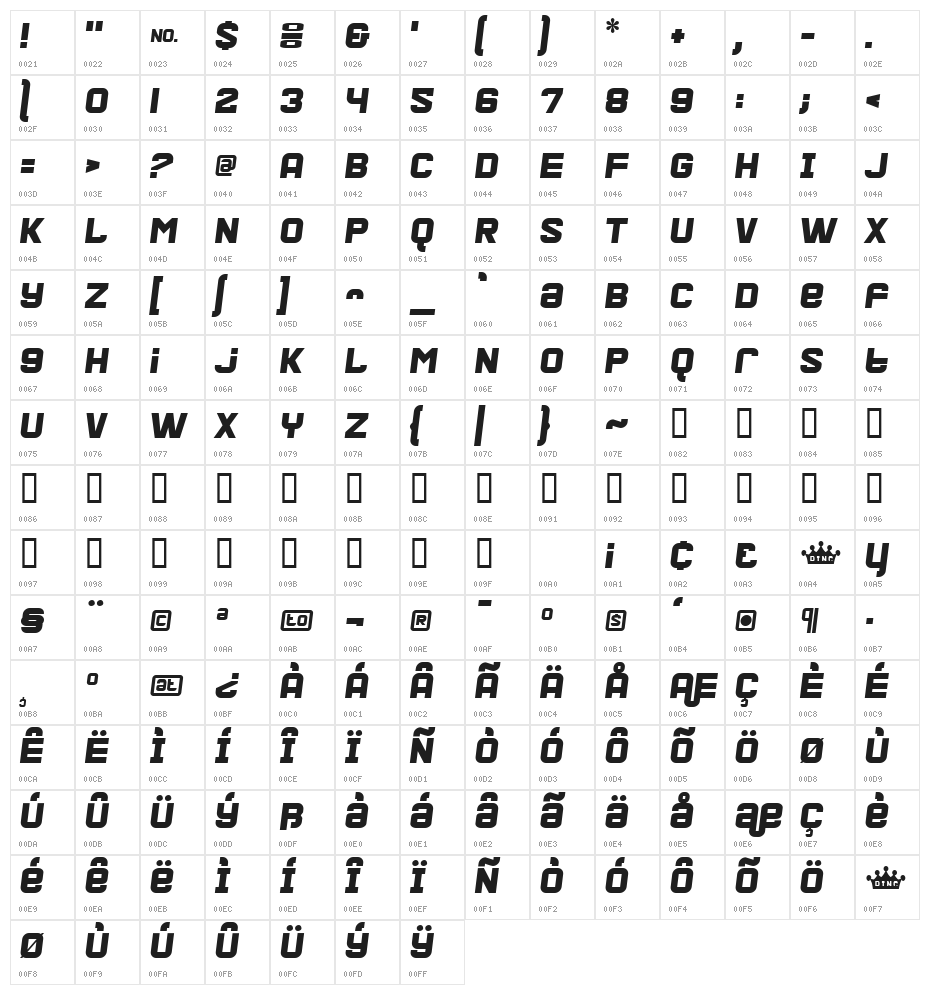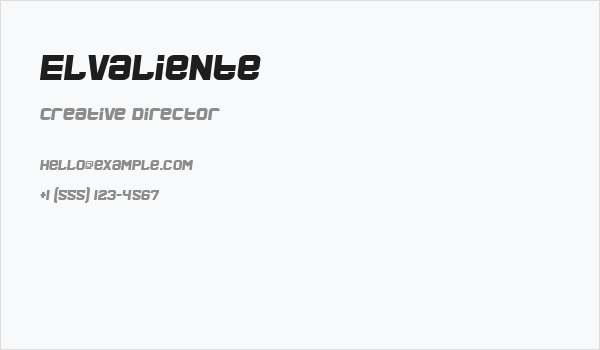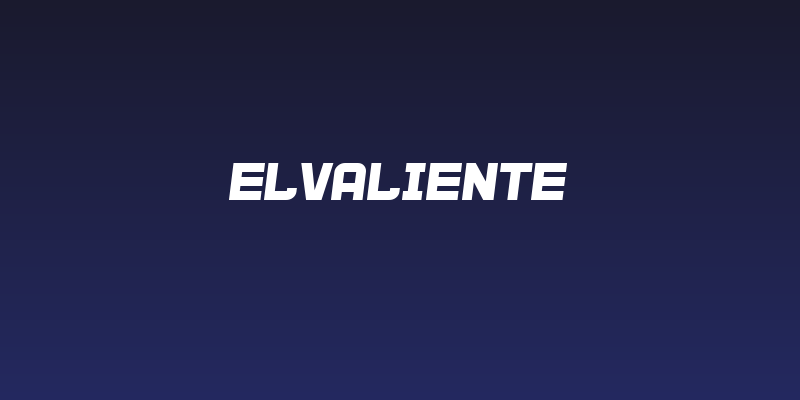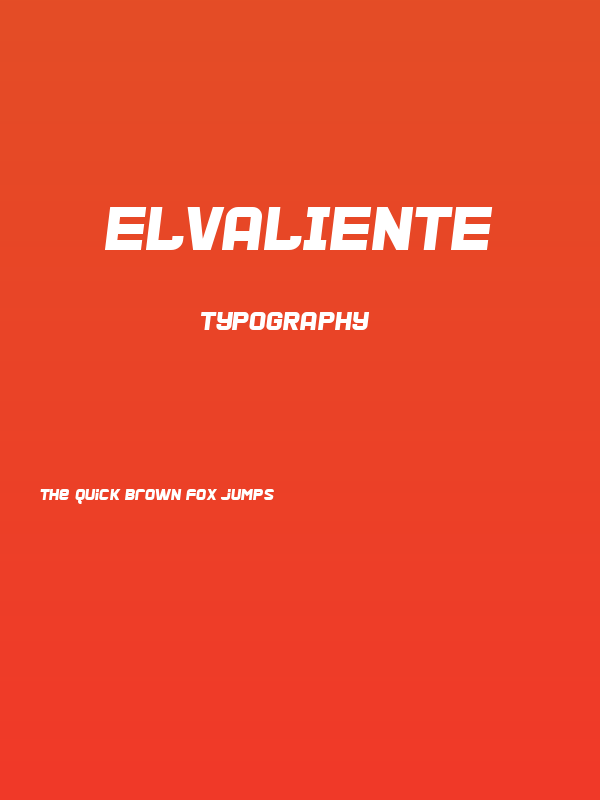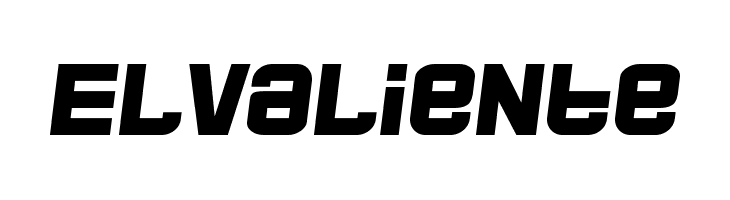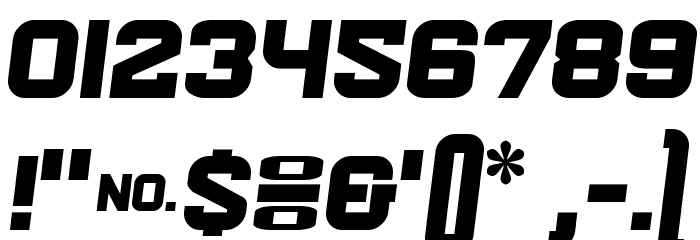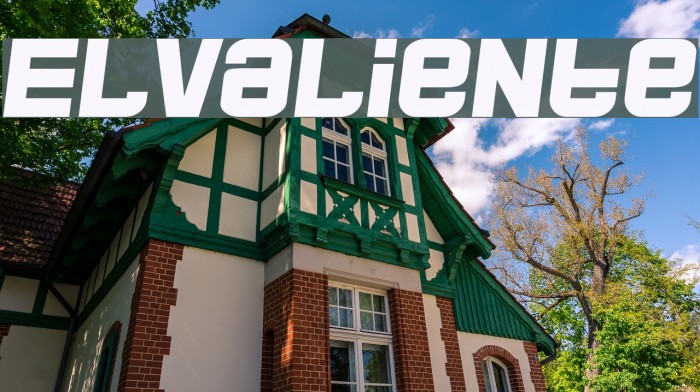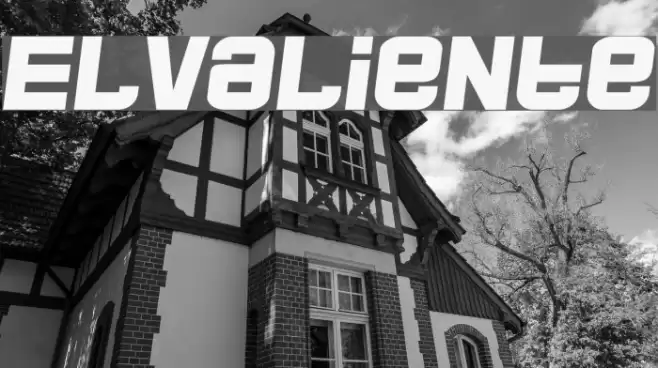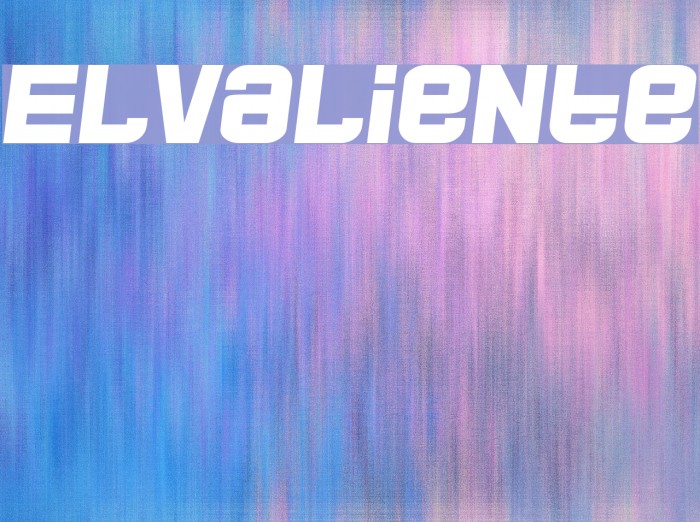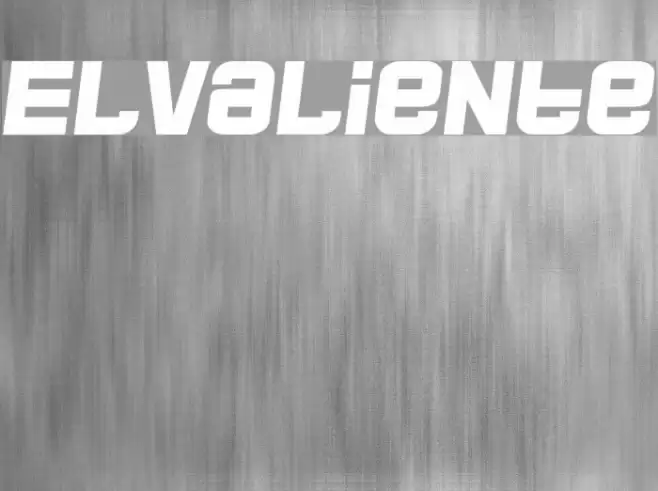
ElValiente Font
ElValiente Description
This font features a bold and dynamic style with a strong, angular design. The characters are slightly italicized, giving a sense of motion and energy. The uppercase and lowercase letters maintain a consistent weight, creating a cohesive look. The numbers and special characters are designed to match the overall aesthetic, with sharp edges and a modern feel. The font's boldness and slight slant make it ideal for attention-grabbing headlines and impactful designs.
| Proposed Projects | Ideal for sports branding, dynamic posters, and modern advertising campaigns. |